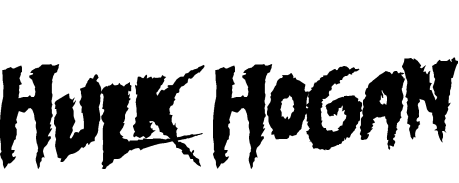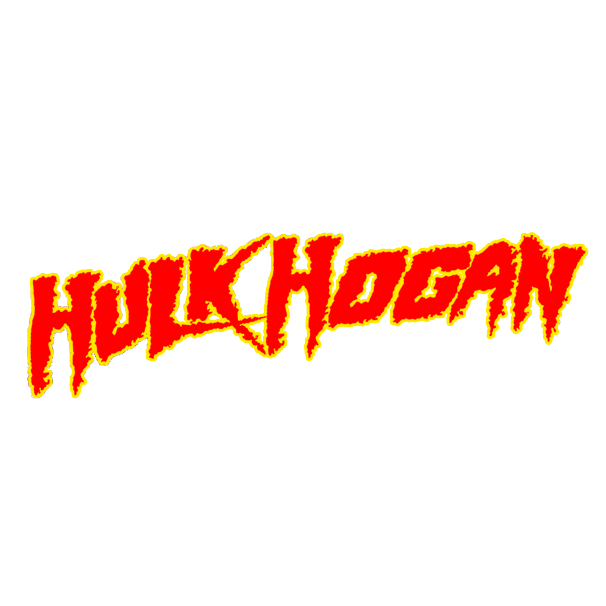
Hulk Hogan Font
Fonts in UseHulk Hogan, born Terry Eugene Bollea, is a retired professional wrestler and pop culture icon known for his charisma and larger-than-life persona. Considered one of the greatest wrestlers ever, he played a significant role in the "Golden Age" of professional wrestling in the 1980s.
The font utilized in the Hulk Hogan logo resembles the fanmade Hogan Mania font designed by Jayde Garrow. It features capital letters with minimal punctuation marks, and you can access a free download of the font from the Fonts Used Section.